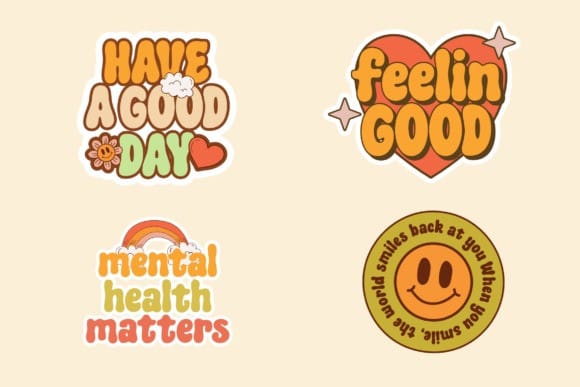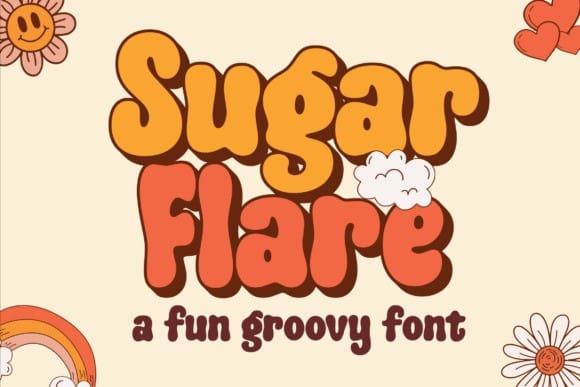
Sugar Flare Font
Sugar Flare Font is a fun and groovy display font inspired by retro vibes and playful designs. Its bold, bubbly letters bring a cheerful and nostalgic energy to your projects. Perfect for posters, logos, social media graphics, children’s designs, and more, Sugar Flare adds a vibrant and happy touch to any creative work.